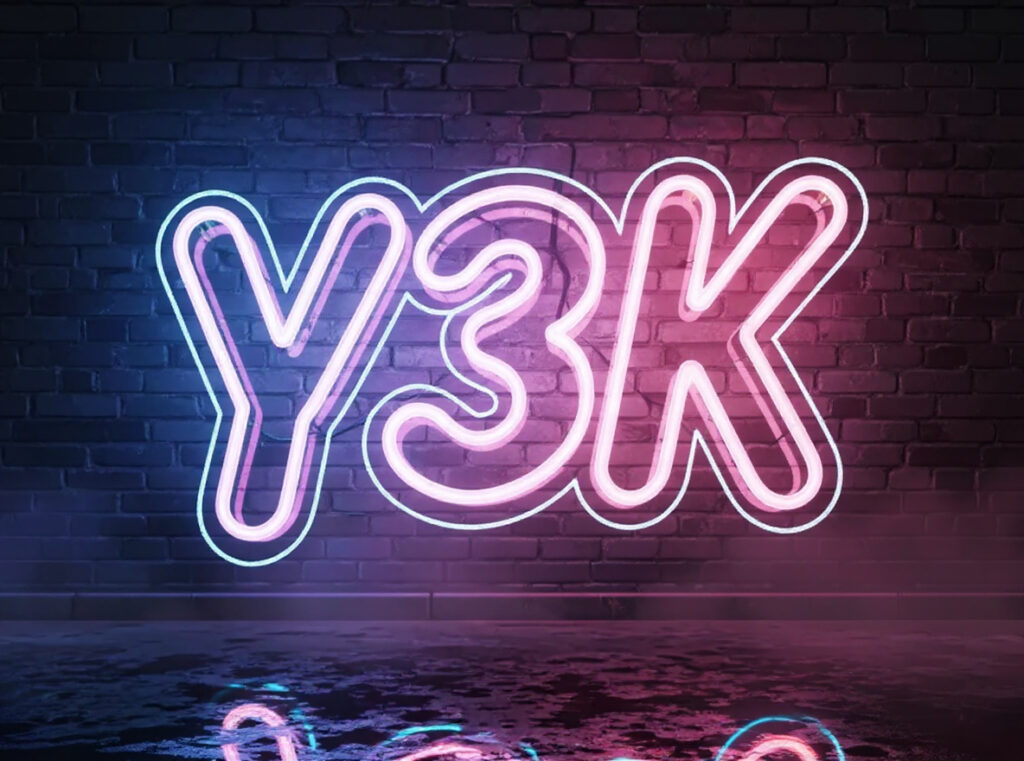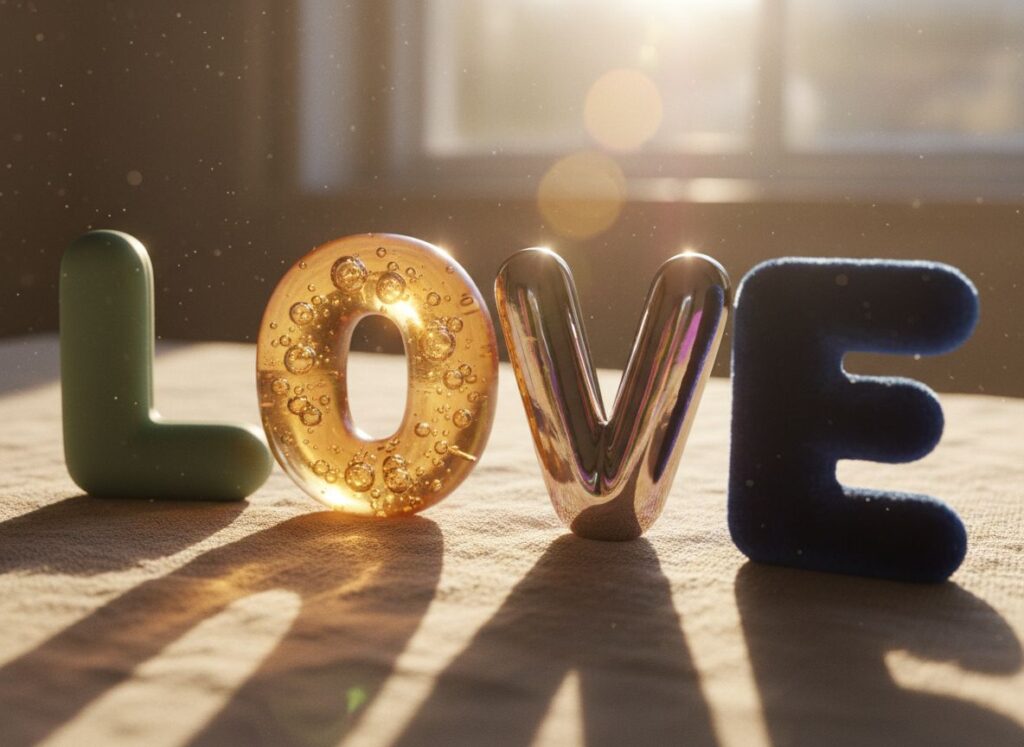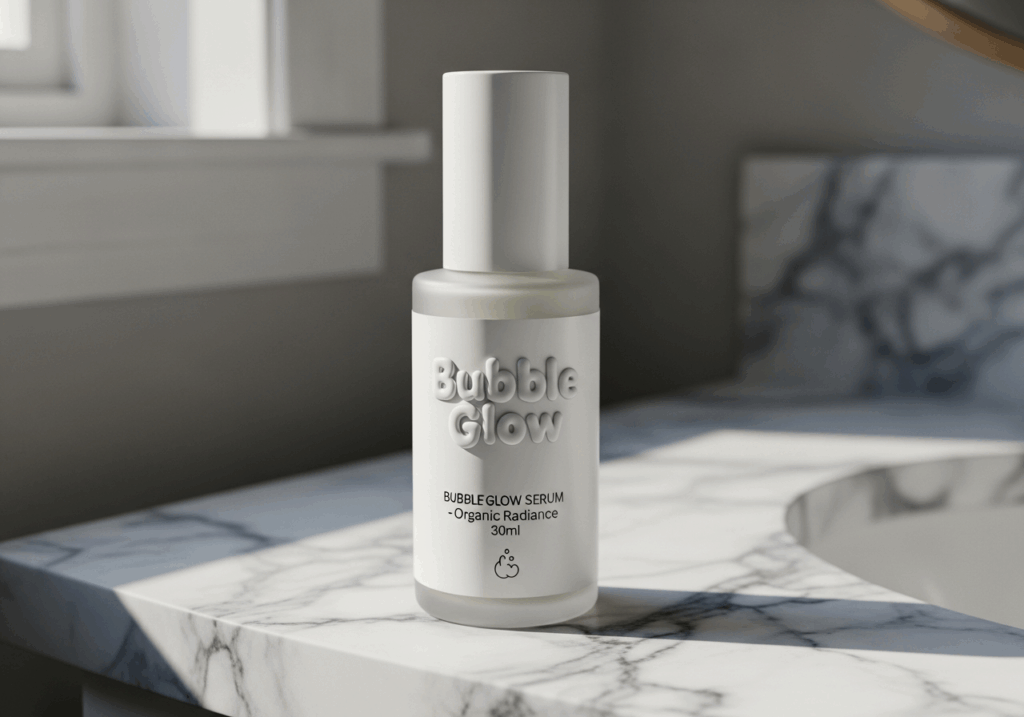
2026 Font Trends: Why Bubble Font Generators Rule Visuals
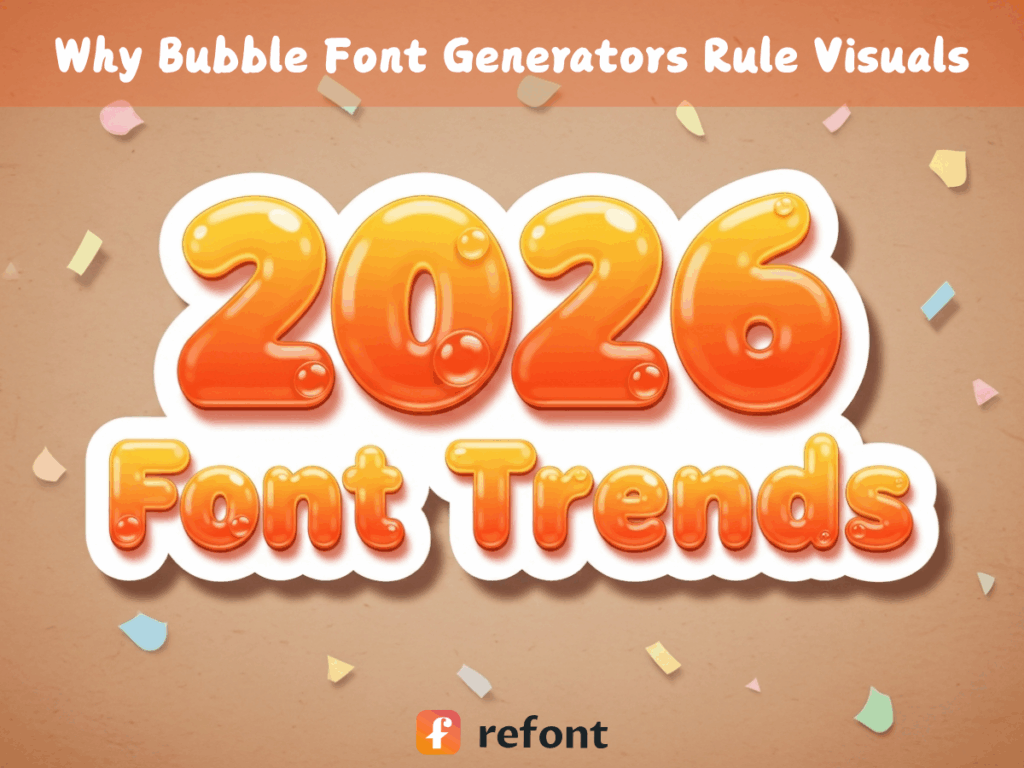
Introduction: The Rising Tide of Bubble Fonts and the Shift to Generative Design
Let’s be honest: we’re all a little tired of the "Corporate Memphis" look. You know the one—flat illustrations, safe colors, and fonts so thin they look like they’re on a diet. As we cruise into 2026, the design world is collectively exhaling a sigh of relief and inhaling something much more fun. The era of rigid, clinical minimalism is officially over, replaced by a visual language that is soft, squishy, and undeniably playful. At the heart of this revolution is the bubble font generator.
In the past, if you wanted aesthetic bubble letters that looked like they were made of liquid chrome or glowing jelly, you needed a PhD in 3D rendering software. But today, the shift toward generative design means that anyone—from a solo YouTuber to a high-end brand—can create personalized fonts that pop off the screen. We’re moving away from "finding" a font in a boring dropdown menu and moving toward "generating" an identity.
Decoding 2026: Why Bubble Font Generators Define the New Flow
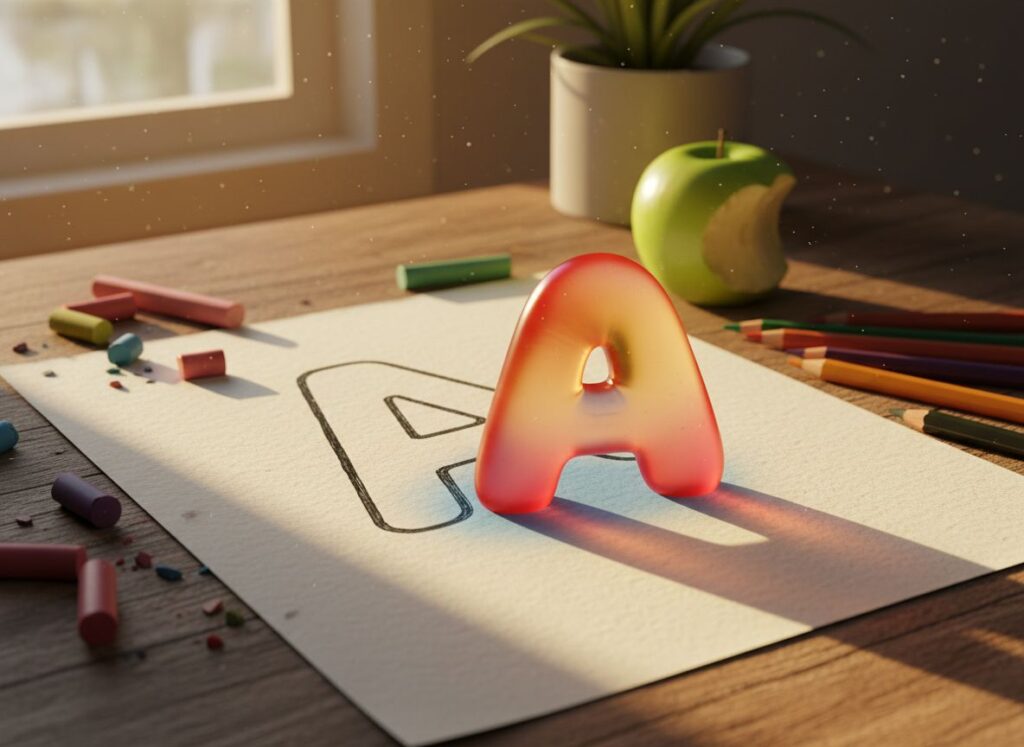
What are Bubble Fonts, and Why Now?
Bubble fonts are exactly what they sound like: letters that have been pumped full of air (or personality). They are rounded, inflated, and often possess a distinct 3D quality that makes you want to reach out and squish them. But why are they dominating our feeds in 2026? Between 2020 and 2024, the world felt a bit... sharp. We had a global pandemic, economic shifts, and a design trend that favored "efficiency" over "emotion."
In 2026, the pendulum has swung back. We crave comfort. Aesthetic bubble letters offer a visual hug. They represent a dynamic shift toward expressive design where the bubble font generator acts as the bridge between imagination and reality. This isn't just a trend; it's a collective cultural desire for softness in a digital world that often feels too hard.
Beyond the Font File: The Dawn of Generative Typography
Traditional font files (like .TTF or .OTF) are, quite frankly, relics. They are static, inflexible, and they all start to look the same after a while. If you want your personalized fonts to have a specific texture—say, a matte rubber feel or a translucent glass effect—a static font file can't help you.
This is where AI text stylization engines like Refont come in. Using a bubble font generator powered by AI allows you to move beyond the limitations of static assets. Instead of spending hours in Blender trying to make a letter "G" look like a balloon, you simply tell the AI what you want. It’s the dawn of generative typography, where the bubble font generator doesn't just give you a shape; it gives you a vibe.
The Bubble Font Resurgence: Nostalgia, Human Touch, and Future-Forward Vibes
Countering the Coldness of AI: Why Bubble Fonts Resonate
In an era where pixels are often polished to a robotic sheen, the bubble font generator has become the ultimate tool for a visual rebellion. We are currently navigating a digital landscape where AI-generated perfection can sometimes feel a little... well, soulless. It’s that "uncanny valley" of design—where everything is too symmetrical, too sharp, and honestly, a bit sterile. By utilizing a bubble font generator, creators are intentionally leaning into "imperfect" organic shapes that feel inherently more human.
A Human Touch in a Digital World
Think about the difference between a sharp spike and a soft cushion. Psychologically, we are hardwired to associate rounded, inflated shapes with safety and friendliness. This is why aesthetic bubble letters are having such a massive moment in 2026. As the internet becomes flooded with algorithmic content, the tactile, squishy nature of aesthetic bubble letters provides a visual hug that sharp, corporate fonts simply cannot offer.
When a brand chooses to use a bubble font generator, they aren't just picking a style; they are reclaiming a human touch. They are choosing personalized fonts that feel approachable rather than intimidating. In a world of cold code, these personalized fonts remind us that there is a real person behind the screen, crafting a unique atmosphere with a bubble font generator. Using aesthetic bubble letters effectively signals that your content is meant for people, not just search engines.
The "Y3K" and Neo-Pop Influence
But don't mistake this for just a "soft" trend; it’s high-energy, too. Welcome to the "Y3K" era—the 2026 evolution of futuristic retro. We’re talking high-gloss finishes and holographic gradients that make aesthetic bubble letters look like they’re floating in a neon-soaked future. This "Neo-Pop" movement thrives on the visual vibrancy found in personalized fonts.
Conclusion: Embrace the Future of Typography
The visual landscape of 2026 is clear: it’s soft, it’s 3D, and it’s deeply personal. The shift from static to generative design is no longer a luxury—it’s a necessity for anyone who wants to stay relevant. By embracing a bubble font generator, you’re not just following a trend; you’re utilizing a powerful tool to create aesthetic bubble letters and personalized fonts that truly resonate with a human audience. Stop searching for the "right" font and start creating it.